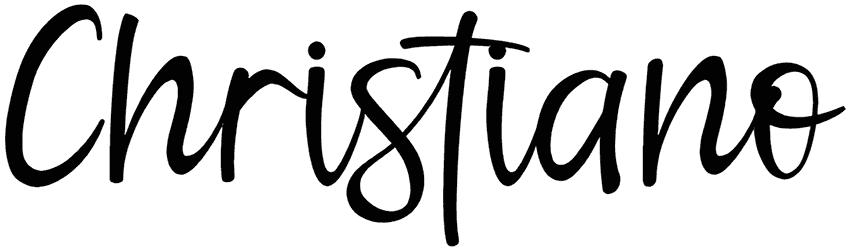
Christiano Font
With a natural and casual manuscript style, your words will be able to have a better relationship with your audience. As a handwritten font with smooth lettering, Christiano can be a nice choice for many layouts with any topic. A happy vibe in your novel design, from greeting cards to apparel, would be properly reflected by this cheerful script font.